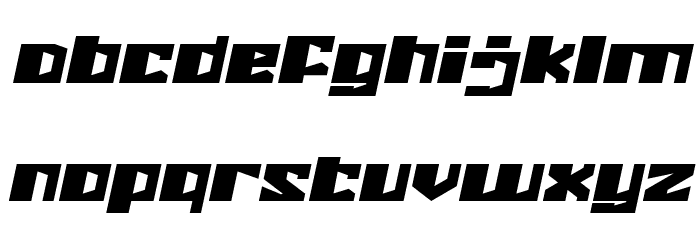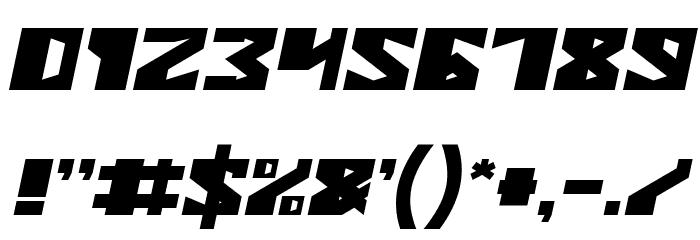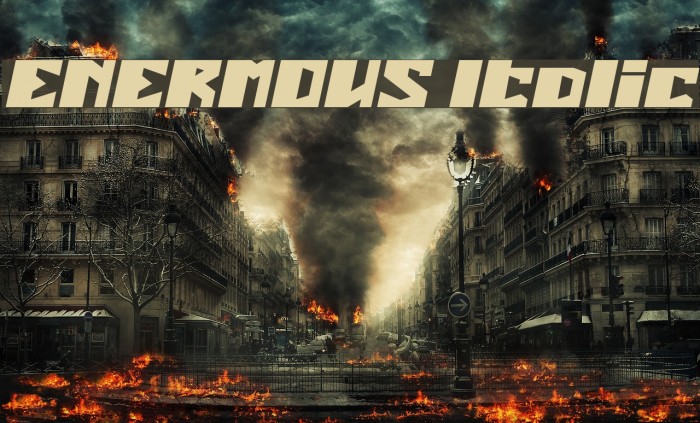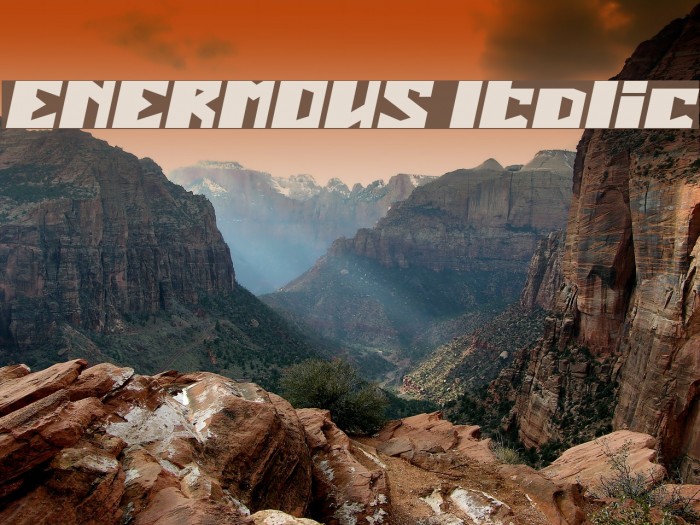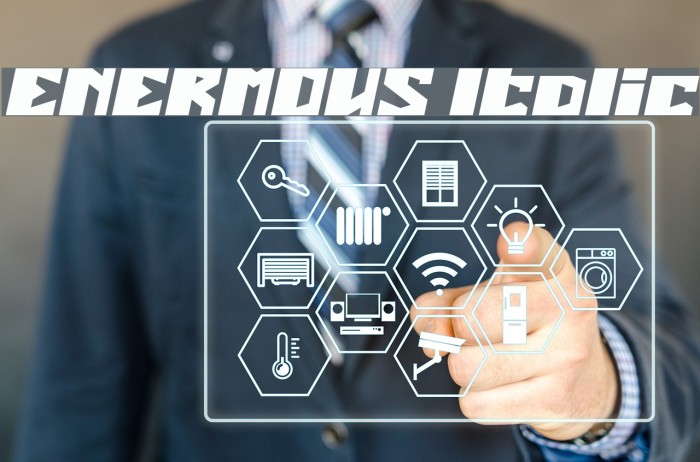
ENERMOUS Italic Font
This font features a bold and dynamic design with sharp, angular edges and a distinct italic slant. The characters are heavily stylized, giving them a futuristic and aggressive appearance. The uppercase and lowercase letters maintain a consistent style, with the lowercase slightly smaller but equally bold. Numbers and special characters follow the same design principles, ensuring uniformity across all glyphs. The font's thick strokes and geometric shapes make it stand out, ideal for attention-grabbing headlines or branding that requires a strong visual impact.
A bold, angular italic font with a futuristic and aggressive style.
- Proposed Projects: Ideal for sports branding, video game titles, sci-fi movie posters, or any project needing a bold, futuristic look.
- Overall Style: Futuristic, Aggressive
- Use Case: Headlines, Logos, Branding